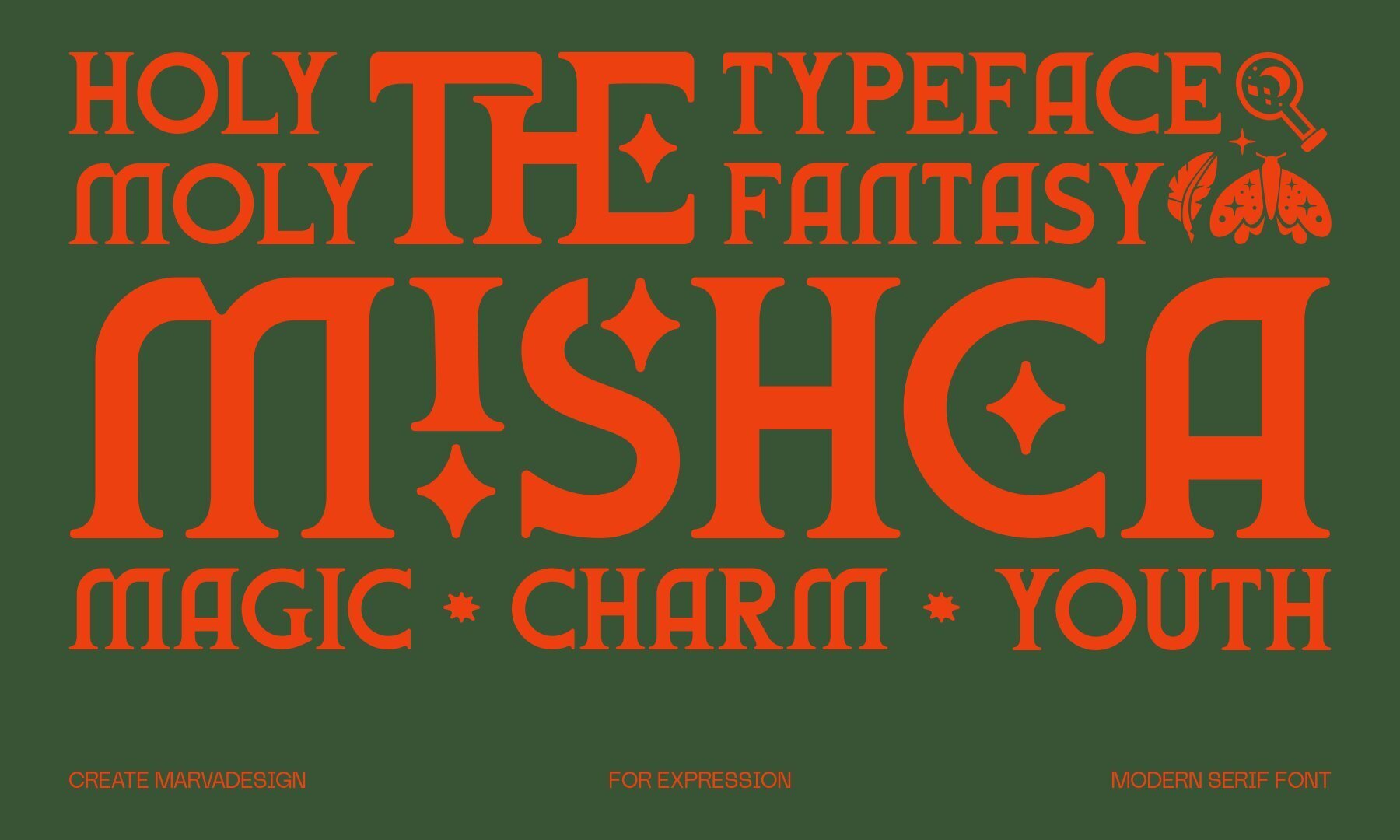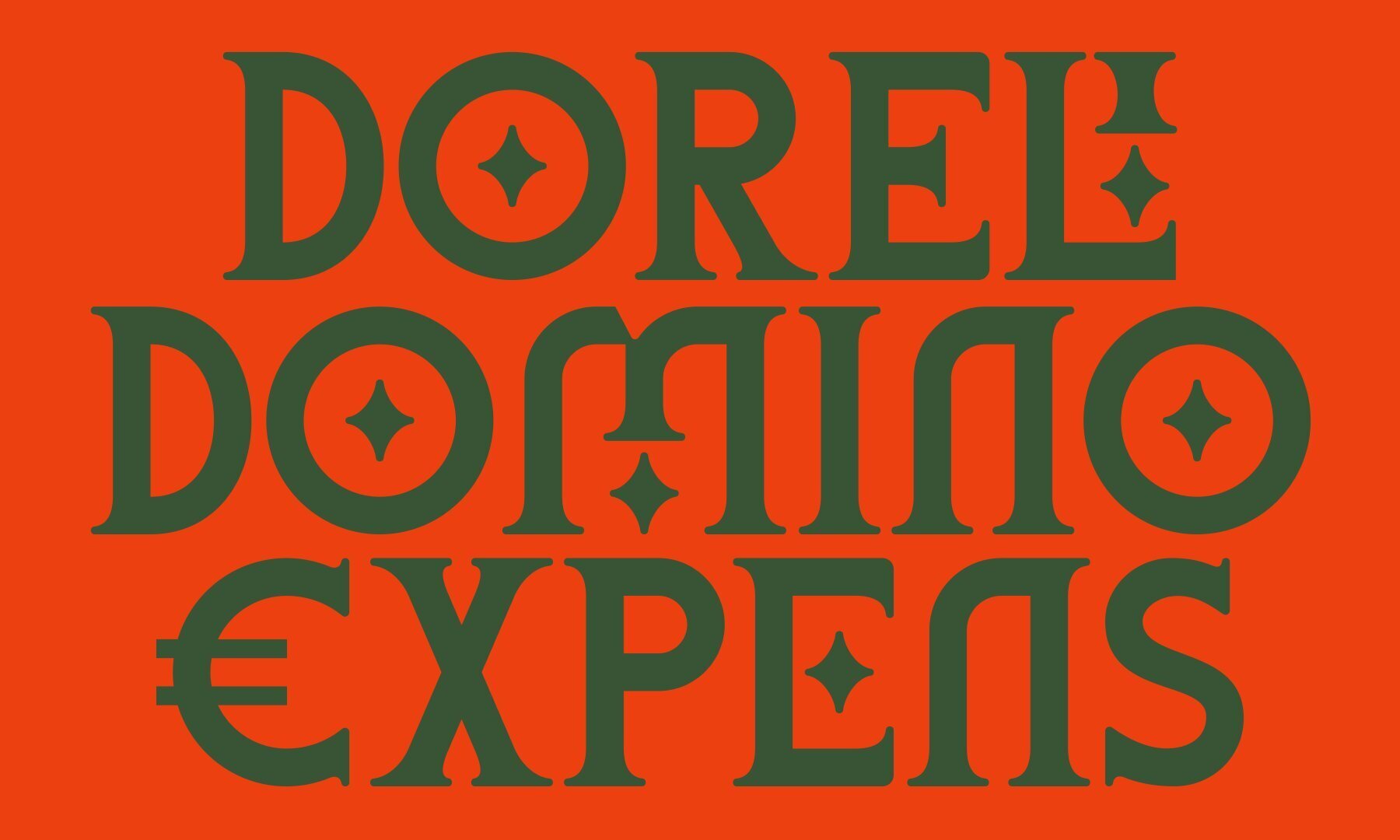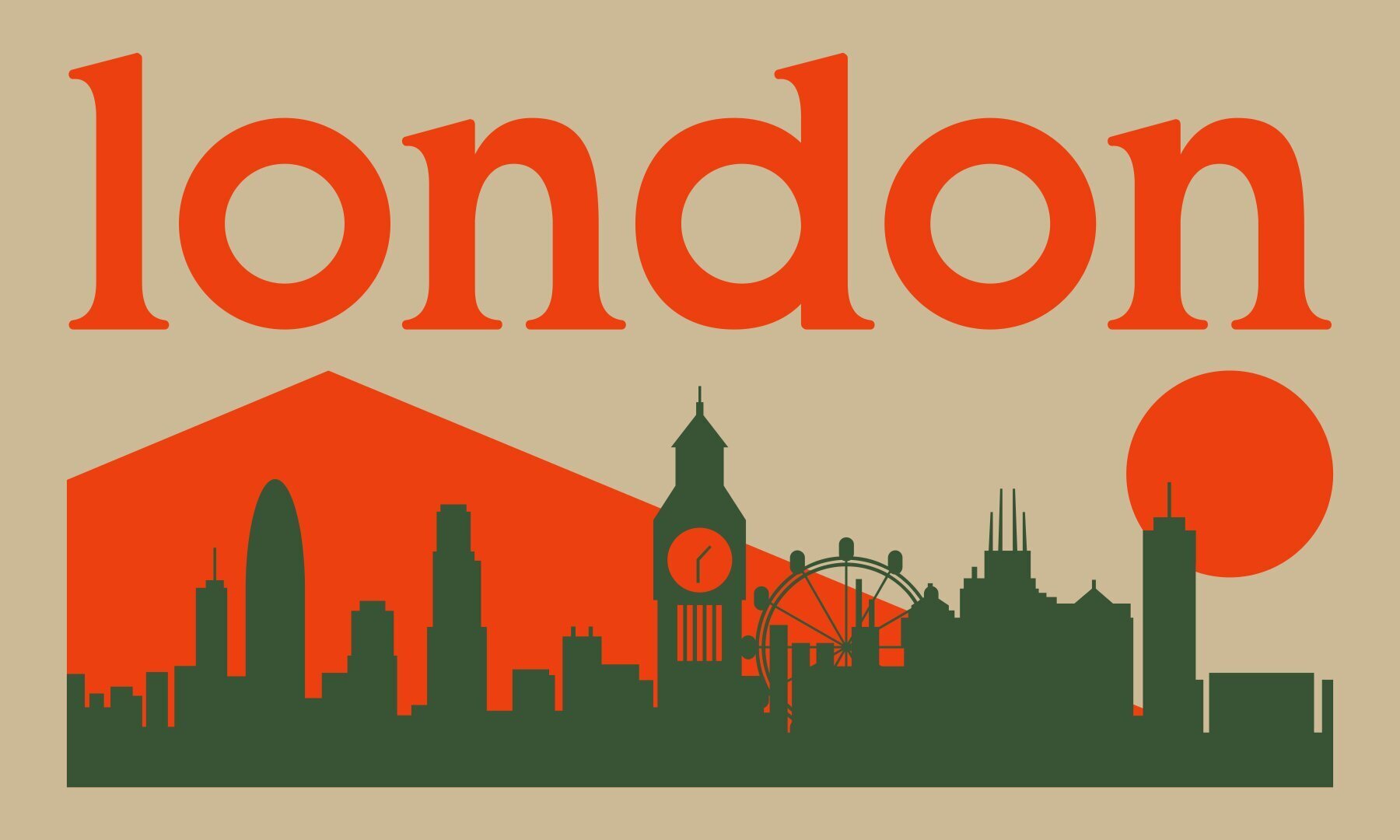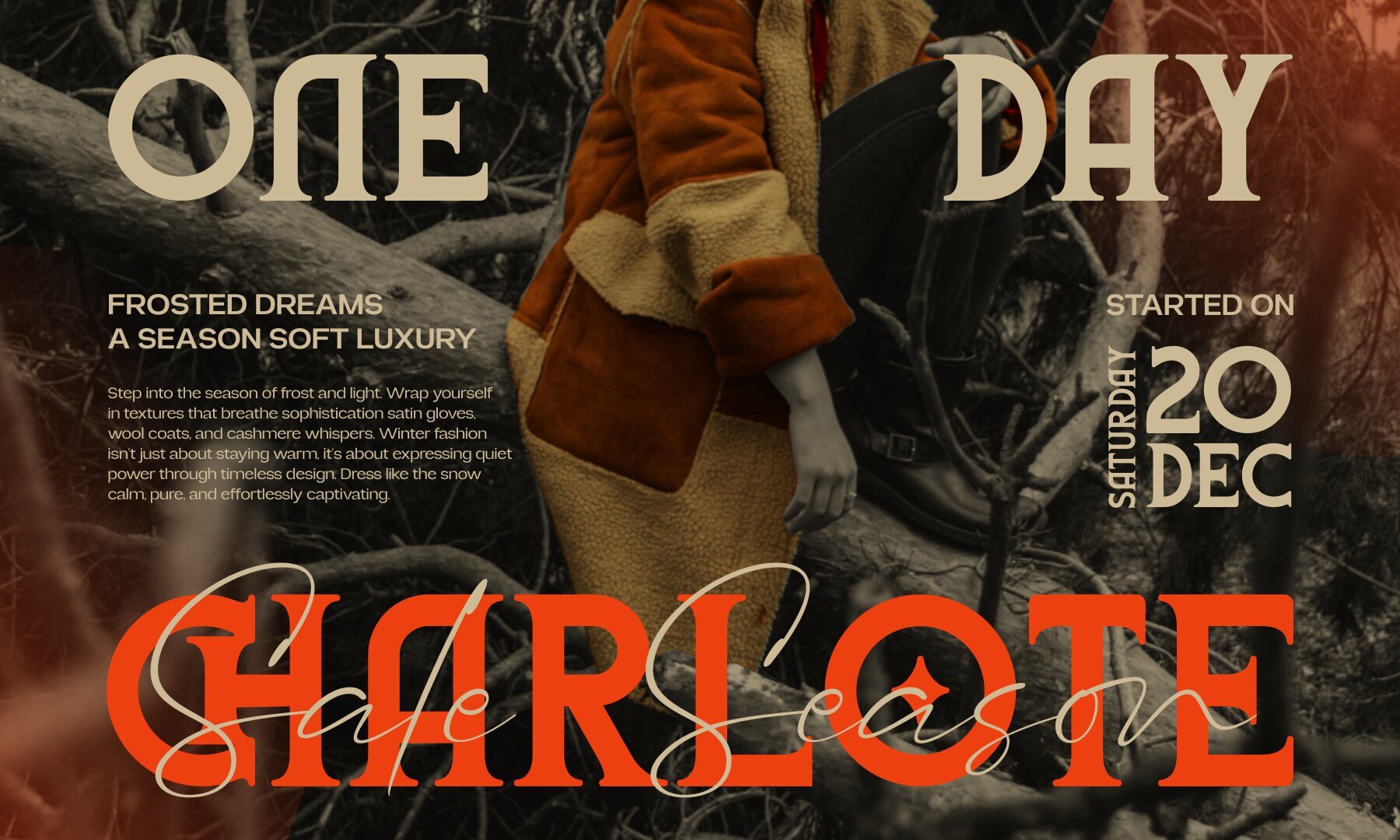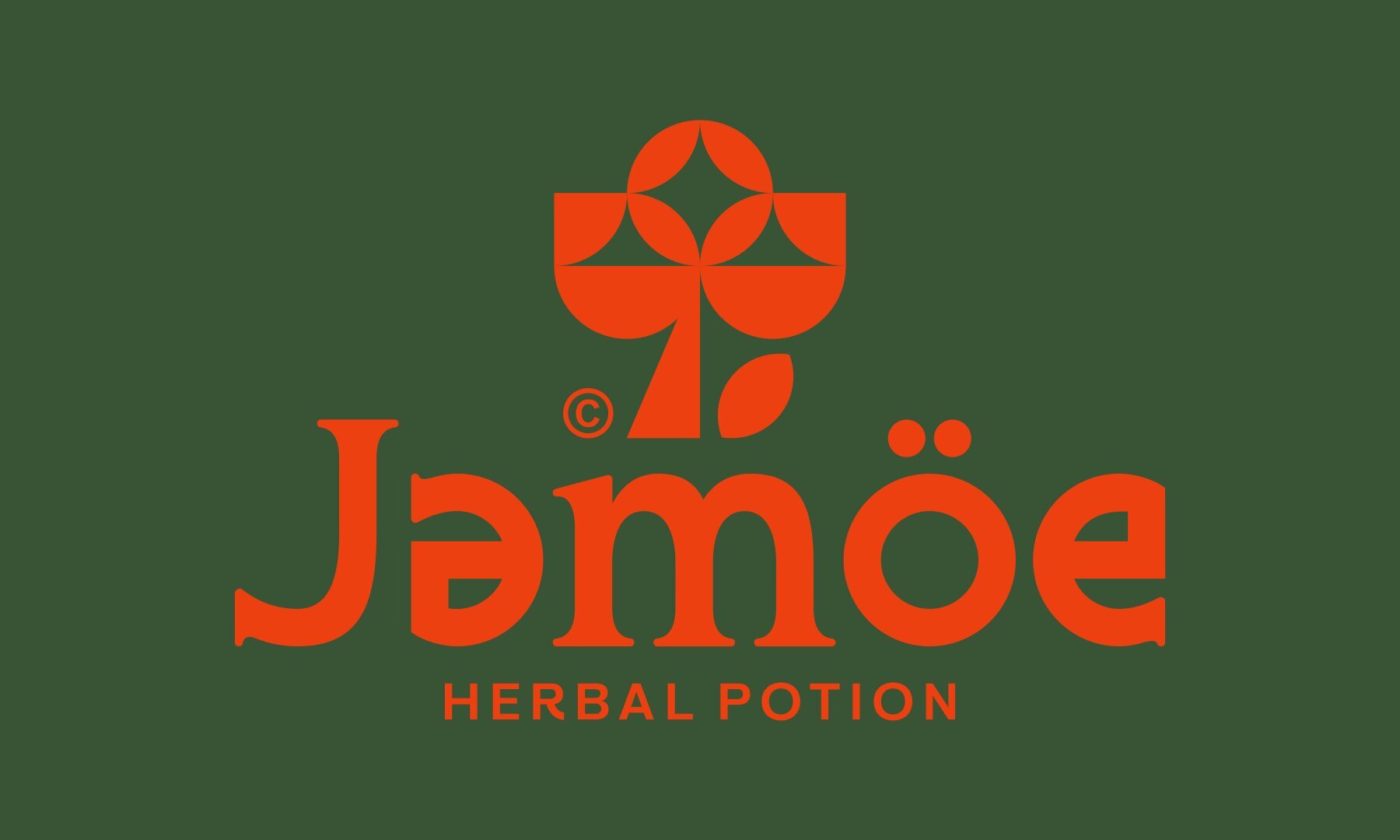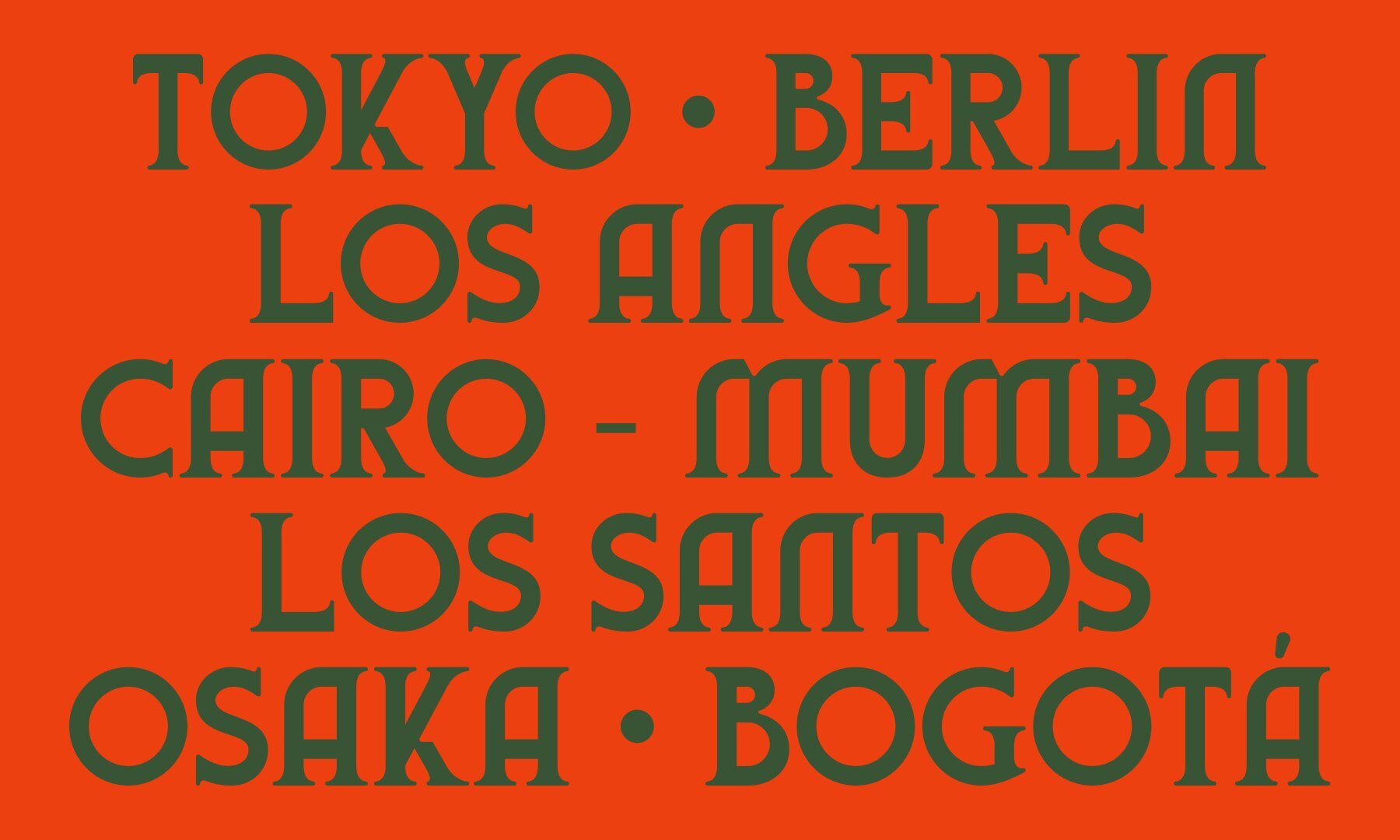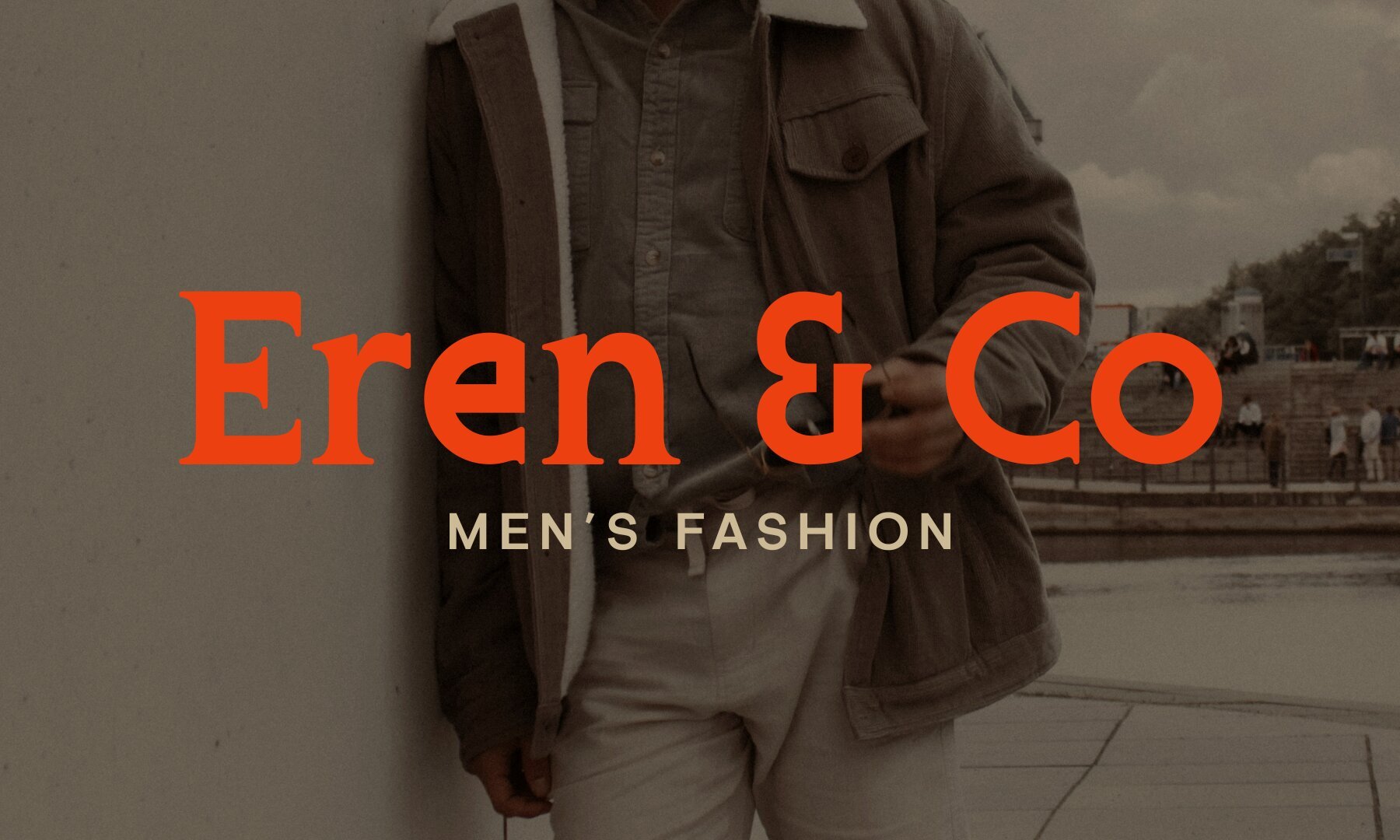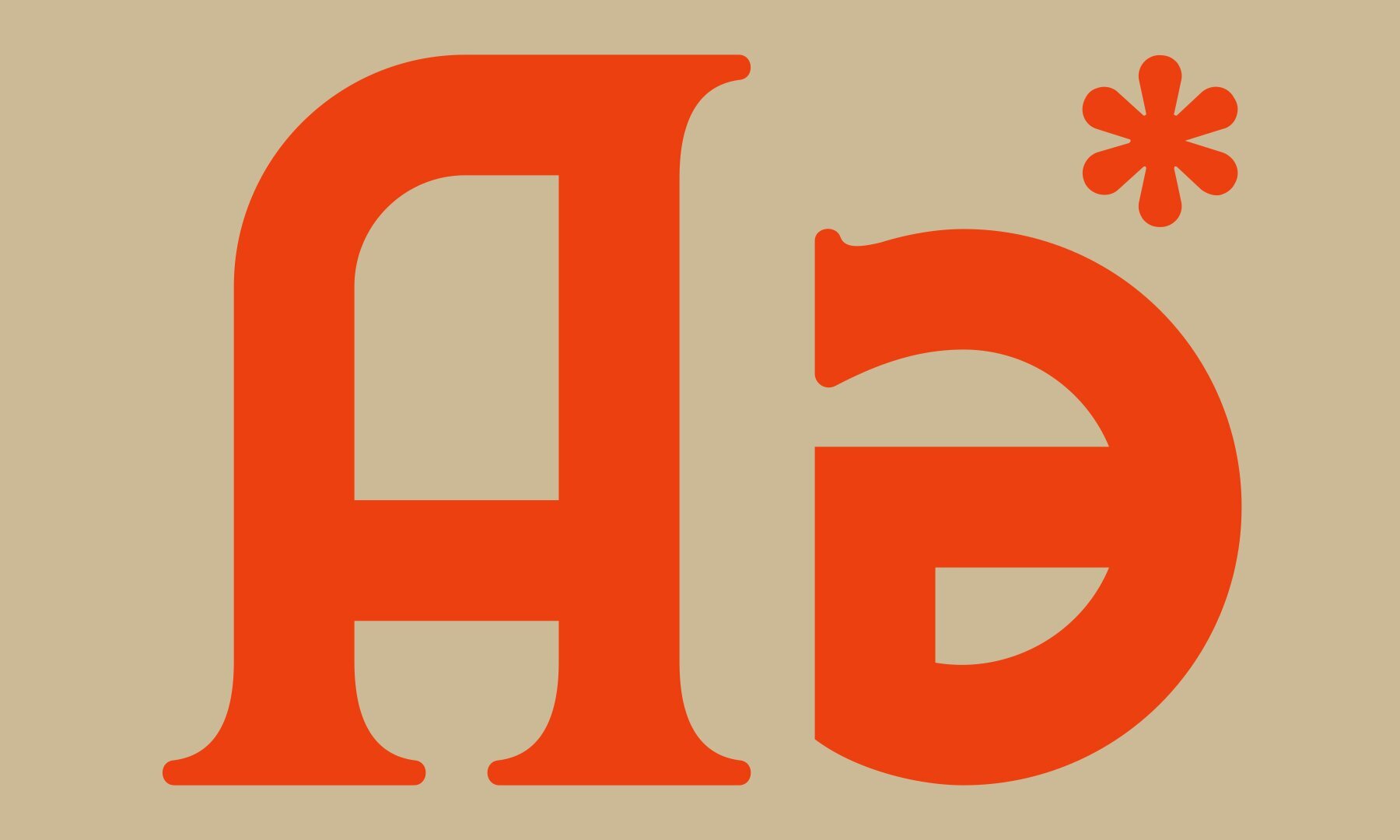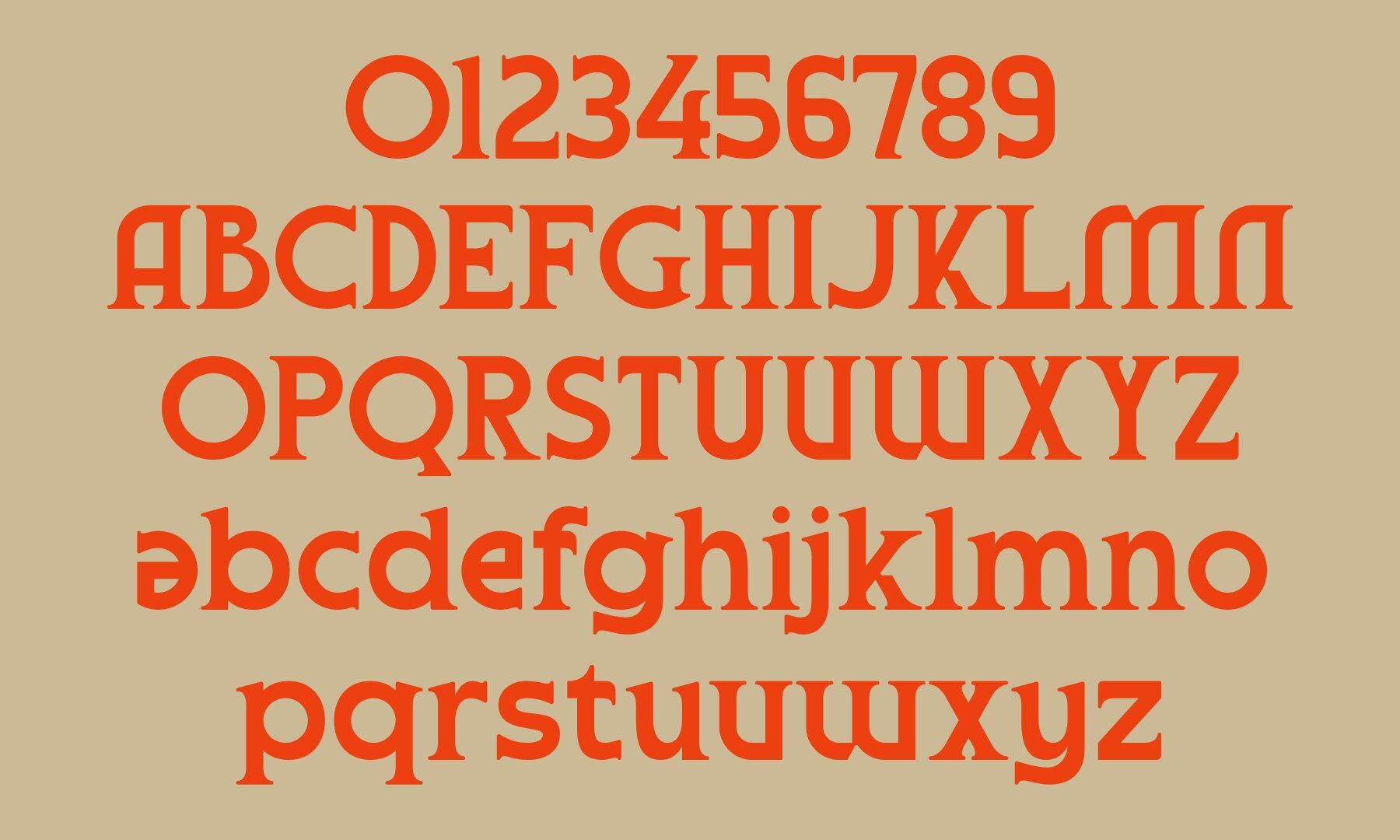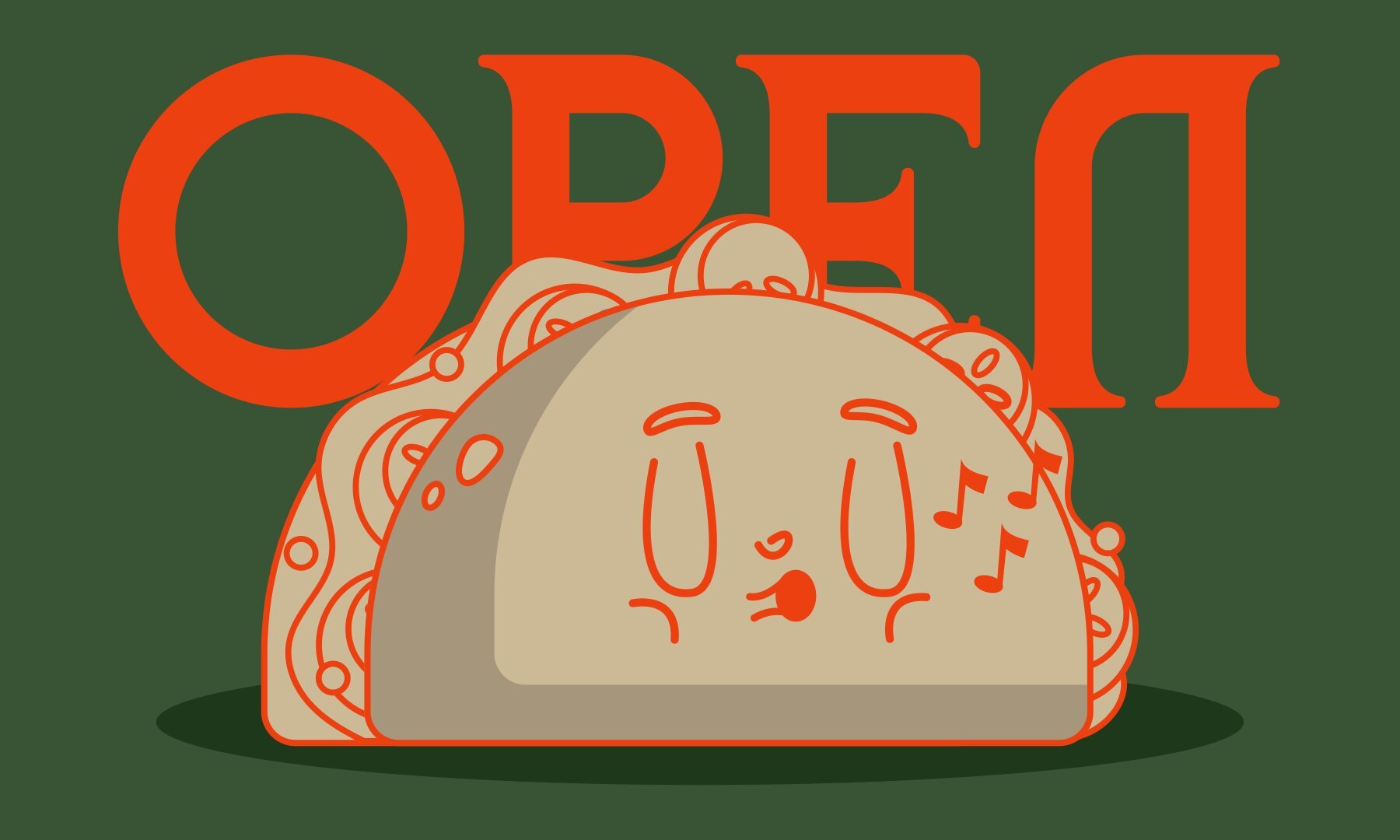
Mishca Font
MISHCA
MISHCA is a contemporary serif typeface that exudes both fantasy and youthful charm. Its singular style merges a bold geometric foundation with whimsical decorative elements, crafting a visual rhythm that is as magical as it is expressive. The font's sharp serifs and curvy letterforms bring to mind vintage elegance, all while embracing a modern twist. MISHCA's standout features include its diamond-shaped inner details and creative alternates, infusing a playful sophistication into any design. Ideal for display purposes, it draws in the viewer's eye, making it perfect for posters, branding, and editorial design. The typeface makes a bold statement, reflecting creativity and character in every stroke.MISHCA: A Modern Serif with Fantasy Flair